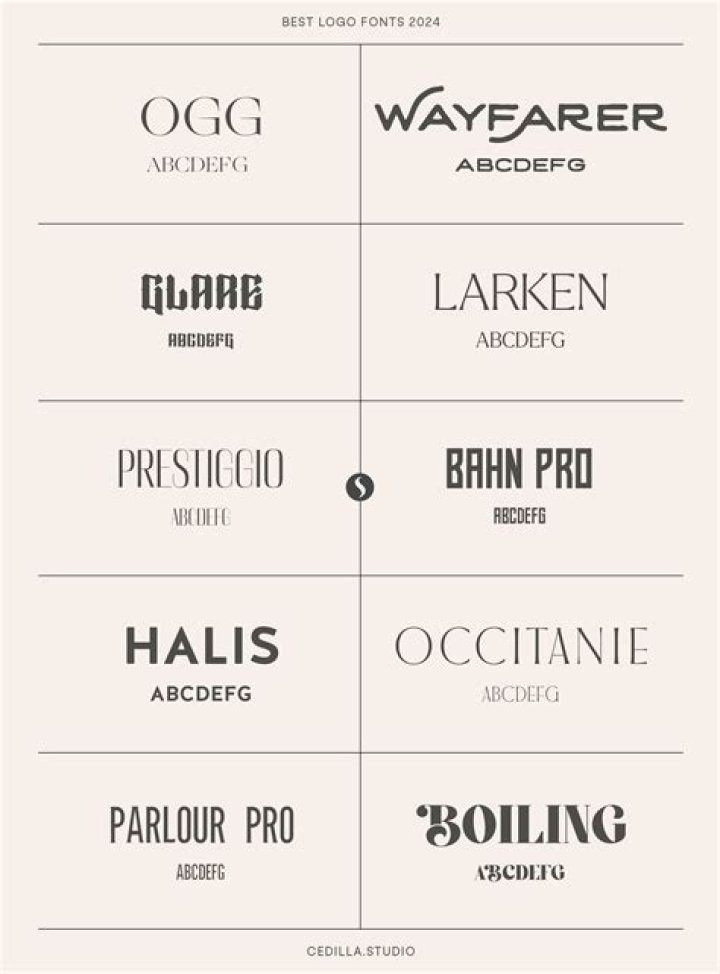
Which is the best font for logo design?
Why are script fonts used in logo design?
A script font is designed so that it captures the artistry and beauty of calligraphy and traditional hand lettering. They can be decorative and most use them in the same manner as a display font by making a statement rather than a set message. These types of fonts can be very popular choices for branding, logotypes, stationery, and poster design.
Which is the Best Script font for branding?
The Honest Designers Script is a beautiful script font that has been hand-lettered to give the font an incredible versatility. Perfect for branding projects, social media graphics, logos, and much more, the Honest Designers Script will help you take your work to new heights.
How to find font used in a logo?
You can also submit a logo font that is not already present in their list. If you have image of the logo and are unable to find the font name using the tool above then you can make use of font identifying tools available such as WhatFontIs or WhatTheFont.
What kind of font should I use for my Logo?
The type of font you choose for your logo will determine whether it’s a formal brand or a casual brand. You’ll notice how almost every luxury clothing brand or multinational corporation uses serif fonts in its logo design. While more personal and casual brands use sans-serif fonts.